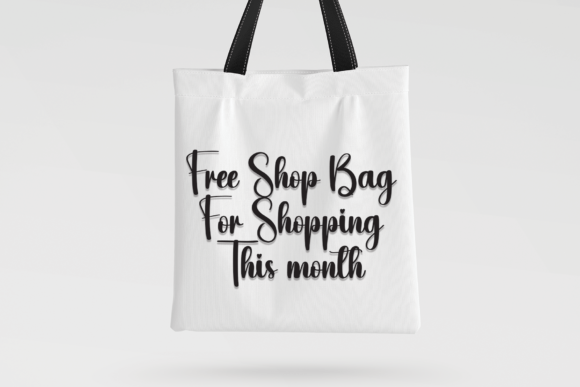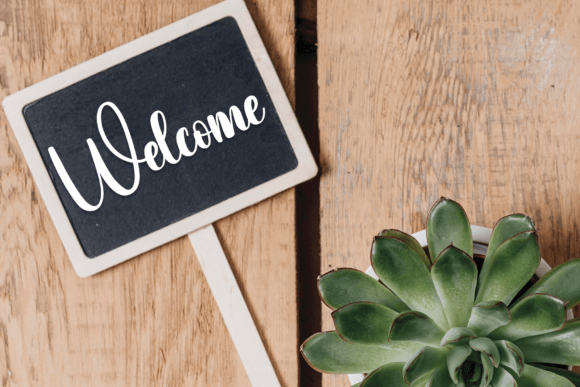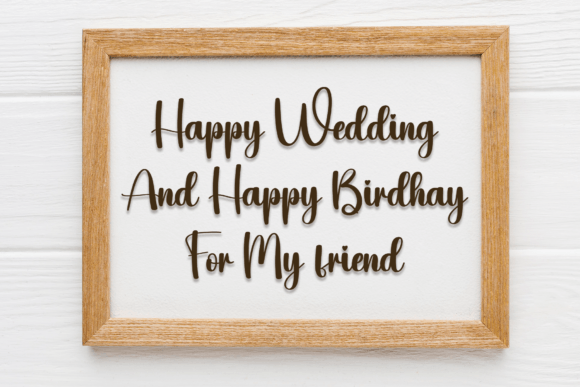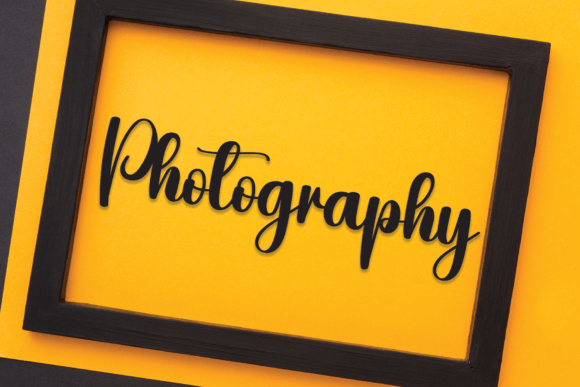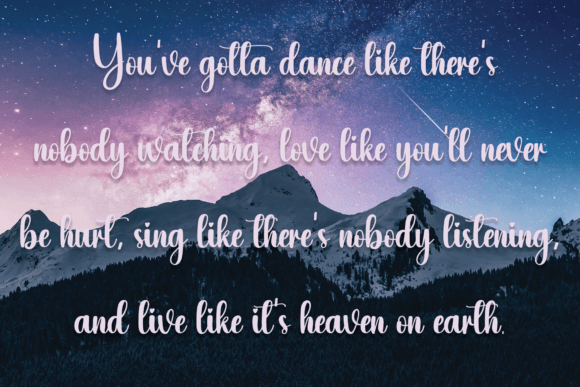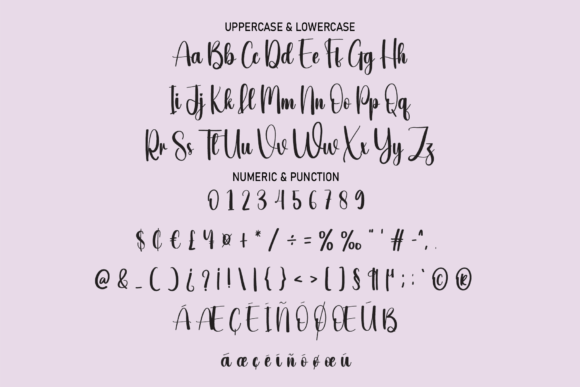
Introducing Heavy Font: The Ultimate Go-To Choice for Designers and Crafters
Are you tired of using the same old fonts for your designs and crafts? Look no further than Heavy Font, a cool and casual handwritten font that’s perfect for a variety of projects. Whether you’re a designer, crafter, or simply someone who loves to get creative, Heavy Font has the potential to become your new favorite go-to font.
What is Heavy Font?
Heavy Font is a beautifully designed handwritten font that’s perfect for adding a personal touch to your projects. Its casual and laid-back vibe makes it ideal for a wide range of applications, from digital design and presentations to crafts and greeting cards.
Key Features of Heavy Font
- Handwritten style: Heavy Font has a unique, handwritten style that’s perfect for adding a personal touch to your projects.
- Cool and casual: This font has a cool and casual vibe that’s perfect for designers and crafters who want to add a relaxed touch to their work.
- Versatile: Heavy Font is versatile and can be used for a wide range of projects, from digital design and presentations to crafts and greeting cards.
- Easy to read: Despite its casual style, Heavy Font is easy to read and understand, making it perfect for use in body text.
Use Cases for Heavy Font
So, what can you use Heavy Font for? The possibilities are endless! Here are a few ideas to get you started:
- Crafts: Heavy Font is perfect for use in crafts, such as scrapbooking, card making, and journaling.
- Digital design: This font is great for use in digital design, including social media graphics, blog posts, and website headers.
- Presentations: Heavy Font can add a touch of personality to your presentations, making them more engaging and fun.
- Greeting cards: This font is perfect for use in greeting cards, including birthday cards, holiday cards, and thank-you cards.
Why Choose Heavy Font?
So, why should you choose Heavy Font for your next project? Here are just a few reasons:
- Unique style: Heavy Font has a unique style that’s sure to stand out from the crowd.
- Versatile: Heavy Font is versatile and can be used for a wide range of projects.
Tips for Using Heavy Font
Here are a few tips for using Heavy Font in your projects:
- Use it sparingly: Heavy Font is a bold font, so use it sparingly to add emphasis to your text.
- Pair it with other fonts: This font pairs well with other fonts, so don’t be afraid to experiment with different combinations.
- Adjust the size: Heavy Font can be used at a variety of sizes, so adjust the size to fit your needs.
In conclusion, Heavy Font is a cool and casual handwritten font that’s perfect for designers and crafters. Its unique style, versatility, and ease of use make it a great choice for a wide range of projects. Whether you’re using it for crafts, digital design, presentations, or making greeting cards, Heavy Font has the potential to become your new favorite go-to font. So why not give it a try and see what you can create?